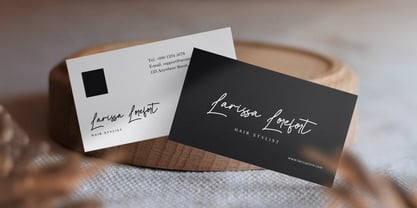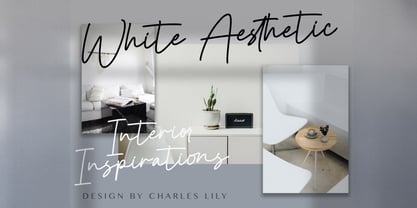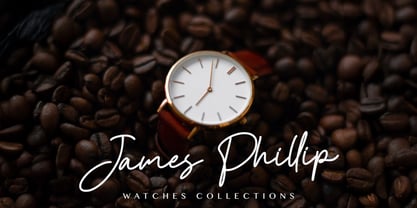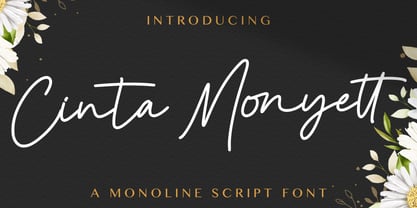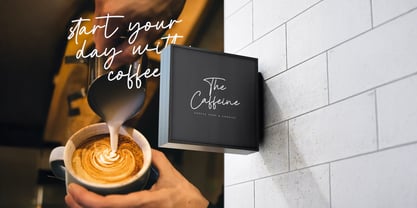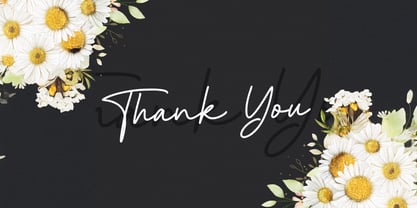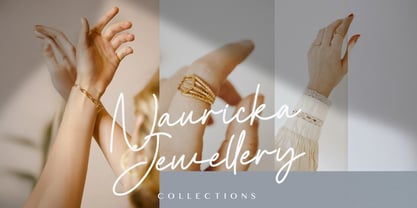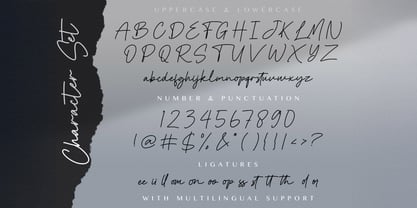
Cinta Monyett
by Stringlabs Creative Studio
The Cinta Monyett Font Family was designed by Virgiawan Listanto and published by Stringlabs Creative Studio. Cinta Monyett contains 1 styles. More about this family
Cinta Monyett is a fun and quirky handwritten font full of charm and personality. With its playful strokes and natural handwritten feel, this font brings a lighthearted, cheerful energy to your designs perfect for anything that needs a touch of cuteness and creativity.
Designers: Virgiawan Listanto
Foundry: Stringlabs Creative Studio